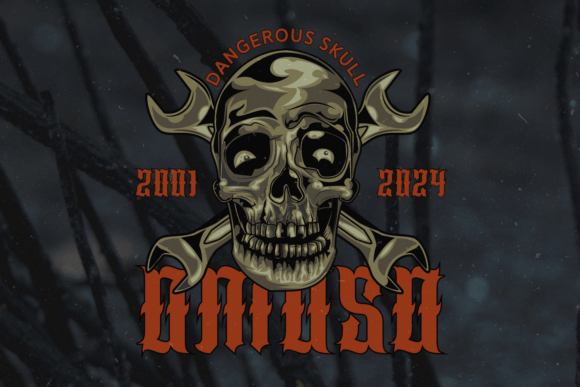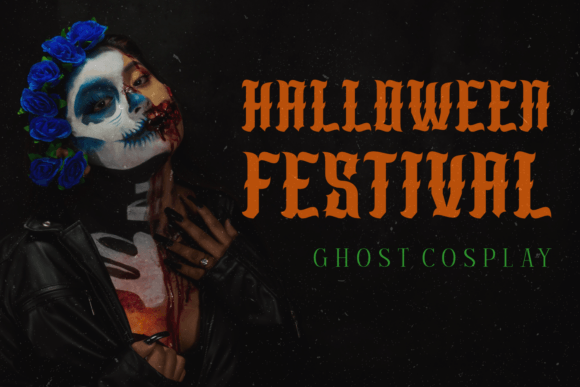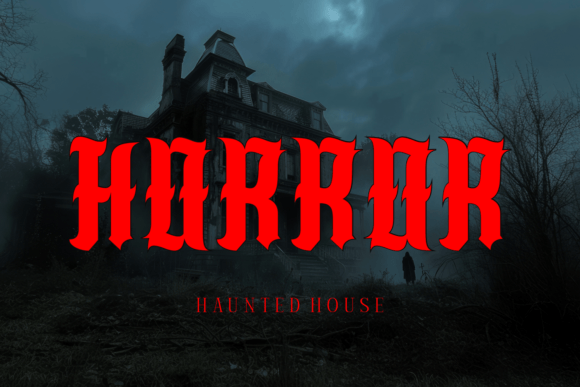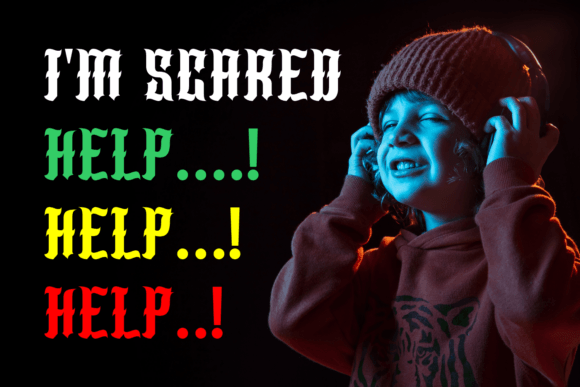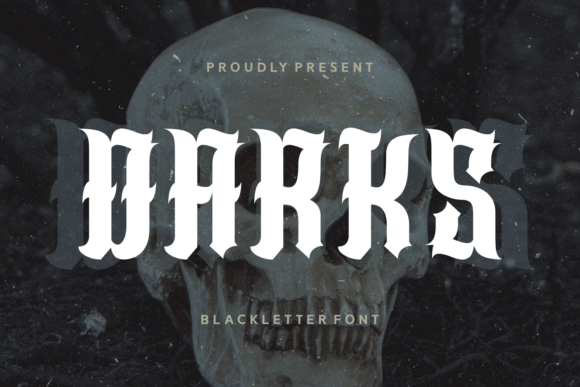
Darks Font: Elevate Your Designs with a Timeless Blackletter Style
In the world of typography, few fonts evoke the sense of tradition and elegance that Darks Font does. This bold blackletter font is designed to make a statement, with its sharp edges and thick lines exuding a powerful yet refined aesthetic. Whether you’re a designer looking to add a touch of classic sophistication to your projects or a crafter seeking to create something truly unique, Darks Font is an exceptional choice.
The Characteristics of Darks Font
Darks Font is distinguished by its bold, blackletter style, which is characterized by:
- Sharp Edges: The font’s sharp edges give it a crisp, defined look that commands attention.
- Thick Lines: The thick lines that make up the font’s strokes add to its bold, powerful appearance.
- Traditional Look: Darks Font’s classic blackletter style evokes a sense of tradition and heritage, making it perfect for designs that require a timeless look.
Perfect for Dramatic Impact
Darks Font is designed to make an impact, making it ideal for projects that require a bold, attention-grabbing headline or logo. Its elegant yet powerful appearance ensures that your design will stand out, whether it’s:
- Headlines: Use Darks Font to create bold, eye-catching headlines that draw readers in.
- Logos: The font’s classic style and bold appearance make it perfect for creating logos that convey tradition and sophistication.
- Design Projects: Add a touch of elegance to your designs with Darks Font, which is suitable for a wide range of projects, from posters and flyers to packaging and branding.
Why Designers and Crafters Love Darks Font
Darks Font has become a favorite among designers and crafters due to its:
- Versatility: The font’s bold, classic style makes it suitable for a wide range of projects and design applications.
- Elegance: Darks Font’s refined appearance adds a touch of sophistication to any design.
- Readability: The font’s clear, bold strokes ensure that your text is easy to read, even at smaller sizes.
Tips for Using Darks Font
To get the most out of Darks Font, consider the following tips:
- Pair with contrasting fonts: Combine Darks Font with a lighter, more modern font to create visual interest and contrast.
- Use for headlines and titles: Darks Font is perfect for headlines and titles, but consider using a lighter font for body text.
- Experiment with colors: While Darks Font looks great in black, don’t be afraid to experiment with other colors to add depth and interest to your design.
Darks Font is a timeless blackletter font that offers a unique blend of elegance and power. Its bold, traditional appearance makes it perfect for designers and crafters looking to add a touch of sophistication to their projects. With its versatility, readability, and classic style, Darks Font is an exceptional choice for anyone seeking to create a lasting impression.